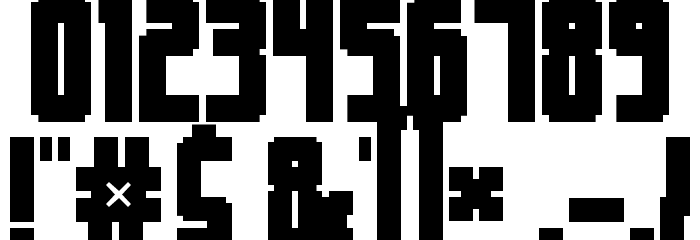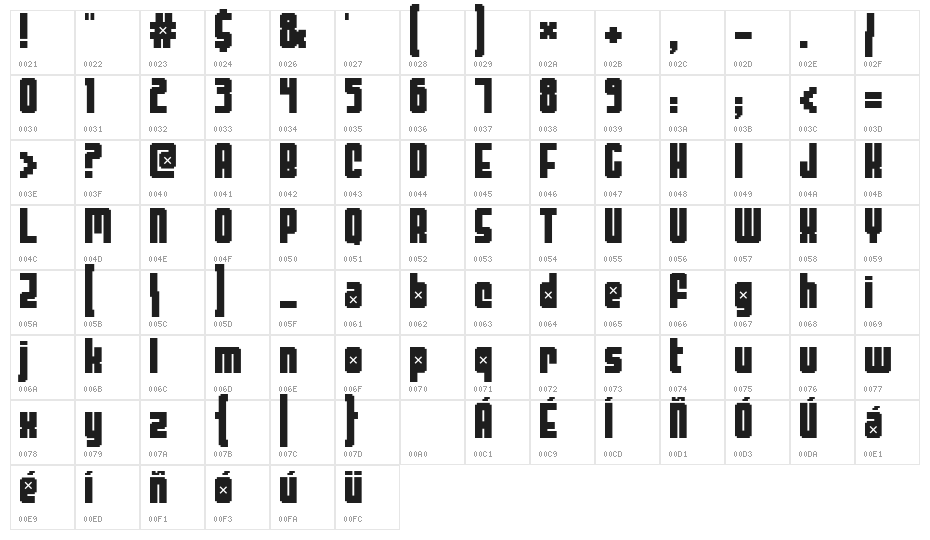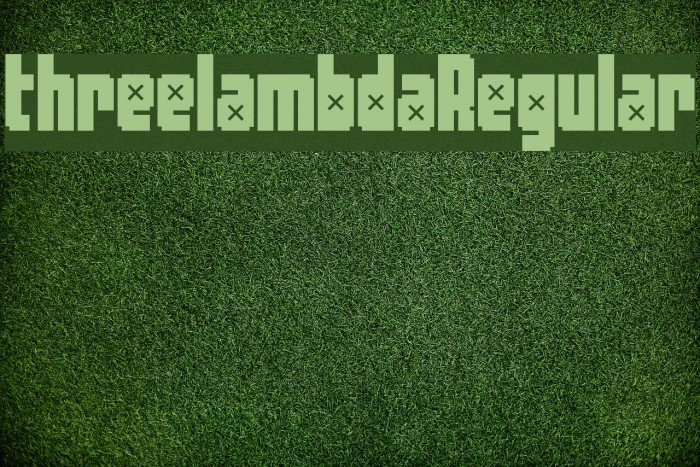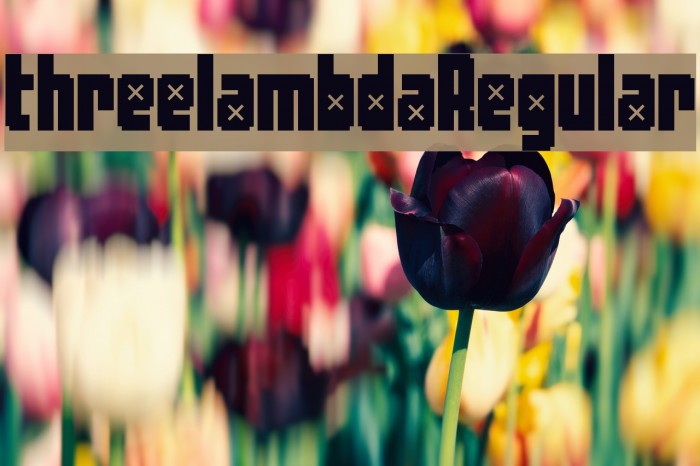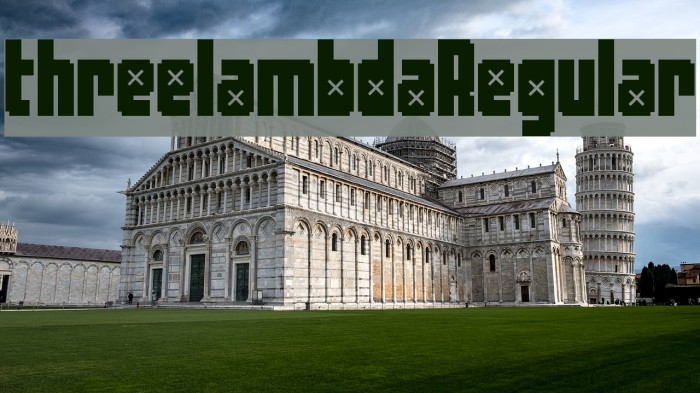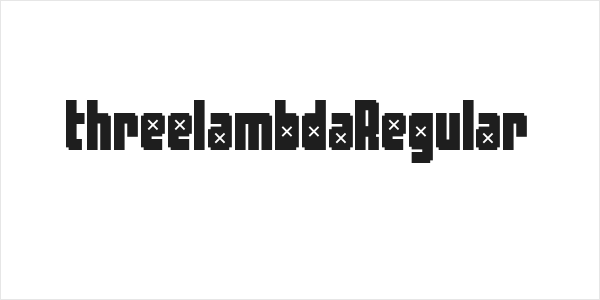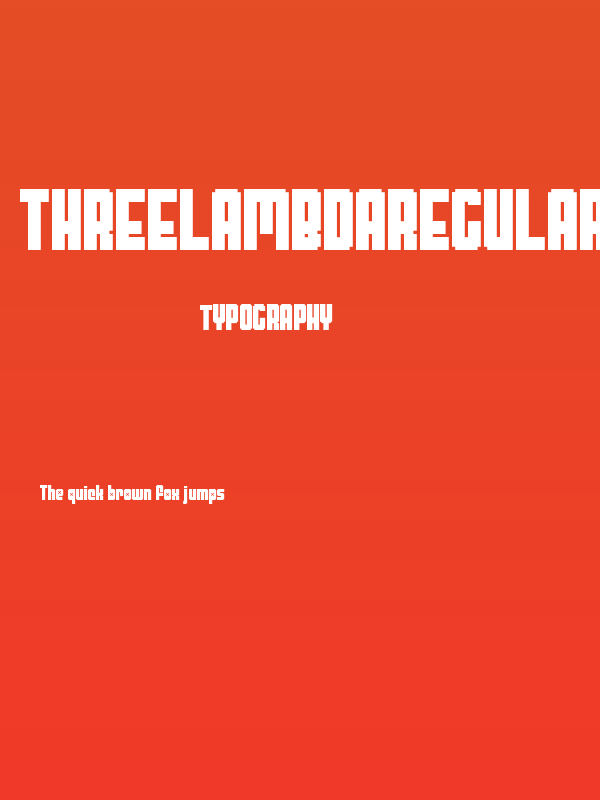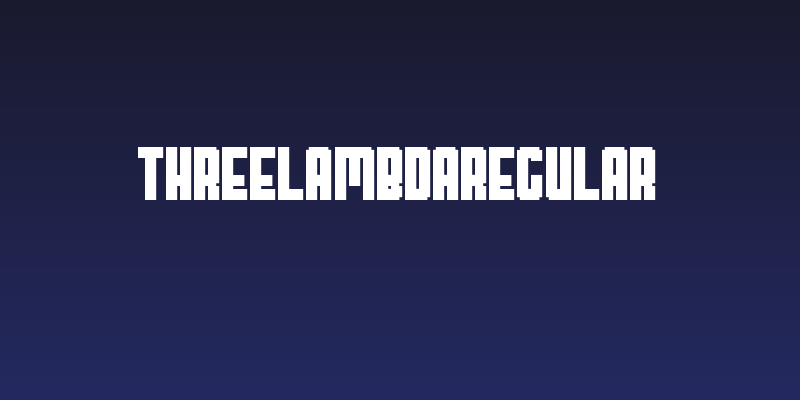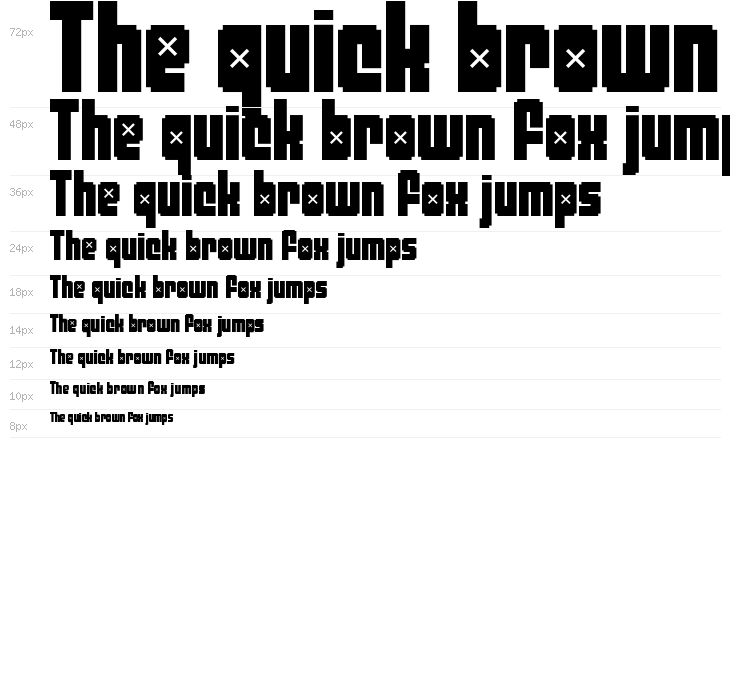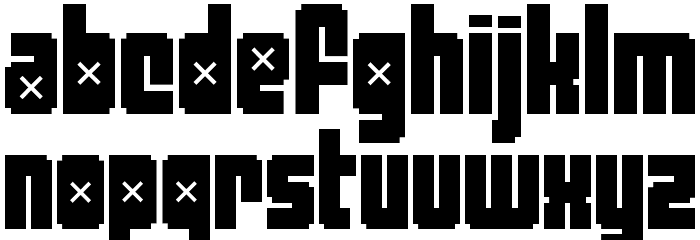
threelambdaRegular Font
threelambdaRegular Description
This font features a bold, geometric design with a pixelated aesthetic reminiscent of early digital typography. The characters are blocky and uniform, with consistent stroke widths that give it a strong, impactful presence. The uppercase and lowercase letters maintain a cohesive style, with the lowercase exhibiting slightly more rounded edges. Numbers and special characters follow the same bold, square design, ensuring uniformity across all glyphs. This font is ideal for projects that require a retro or digital feel, such as video game graphics, tech-themed posters, or digital art.
| Proposed Projects | Video game graphics, tech-themed posters, digital art, retro designs. |